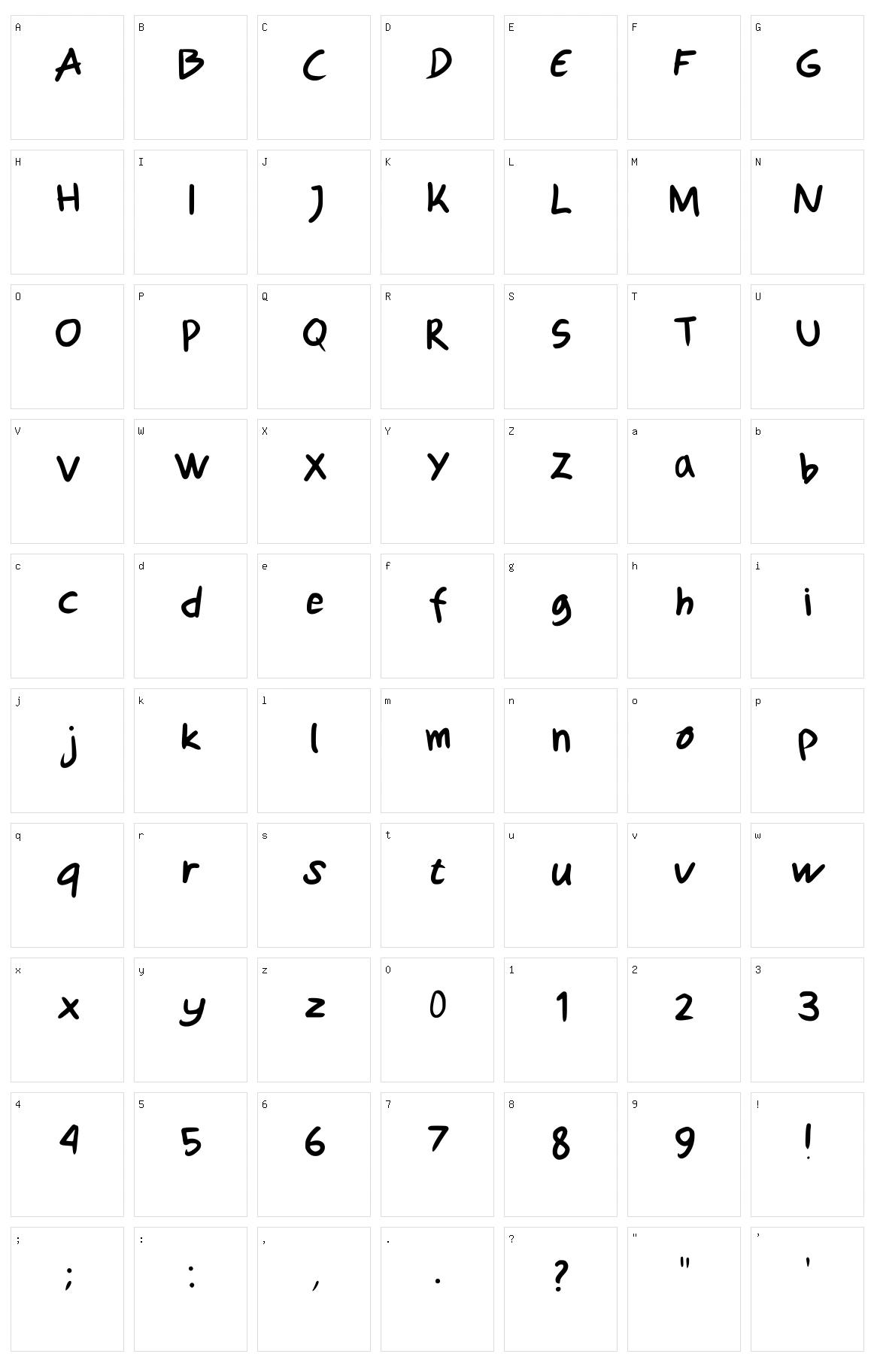
The free font Polo is carefully designed by Sturra, showcasing a thoughtful balance of creativity and usability and falls under the Script font style. When you download the ZIP file, it contains only 12.02 KB of font files, making it lightweight and quick to download. Please review the license details below to understand permitted usage and distribution rights. If license information is not available, we recommend using this font for personal projects only or contacting the author directly for commercial usage permissions.